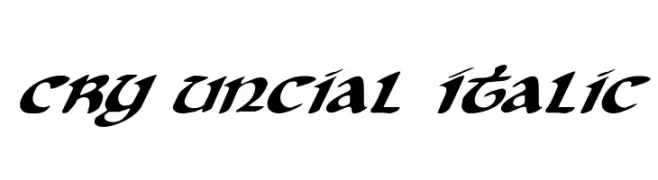
A bold, futuristic font with horizontal stripes and geometric shapes.
A bold, rounded font with a playful and chunky style.
A bold, outlined font with a modern and playful style, featuring geometric shapes and rounded edges.
A bold, geometric font with rounded edges and minimal contrast.
A bold, outlined, and playful font with a handwritten style.
A bold, condensed uncial-style font with a historical yet modern appeal.
A bold, italicized calligraphic font with dynamic strokes and elegant flourishes.
A decorative set of American-themed illustrations instead of a traditional font.